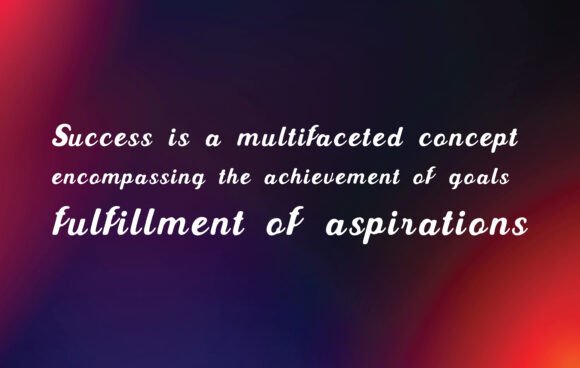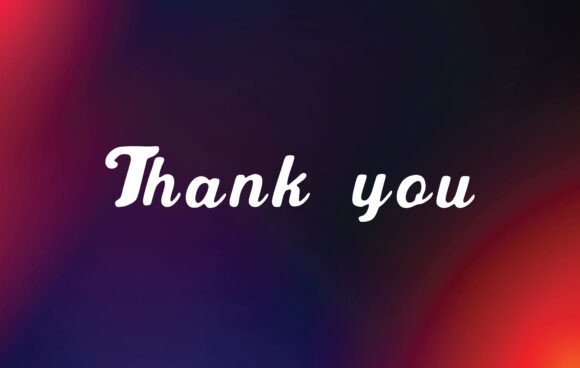
Dillon Font: Elevate Your Creative Projects with this Lovely Handwritten Font
Are you a designer or crafter looking for a font that can take your creative ideas to the next level? Look no further than the Dillon font. This beautiful handwritten font is perfect for creating eye-catching logos, branding, and quotes that will leave a lasting impression on your audience.
What Makes Dillon Font So Special?
Dillon font is a lovely and beautiful handwritten font that has the potential to elevate your creative projects to new heights. Its unique and elegant design makes it stand out from other fonts, and its versatility ensures that it can be used in a variety of contexts. Whether you’re creating a logo, branding materials, or social media graphics, Dillon font is the perfect choice.
Key Features of Dillon Font
- Handwritten Design: Dillon font has a beautiful handwritten design that gives it a personal and unique touch.
- Elegant and Sophisticated: The font has an elegant and sophisticated feel that makes it perfect for creating high-end branding and logos.
- Versatile: Dillon font can be used in a variety of contexts, from digital graphics to print materials.
- Easy to Read: Despite its elegant design, Dillon font is easy to read and understand, making it perfect for creating quotes and other text-based graphics.
Why Choose Dillon Font?
So why choose Dillon font for your creative projects? Here are just a few reasons:
- Stand Out from the Crowd: Dillon font is unique and distinctive, making it the perfect choice for designers and crafters who want to stand out from the crowd.
- Elevate Your Brand: With Dillon font, you can create high-end branding materials that will elevate your brand and make it more memorable.
- Perfect for Quotes and Sayings: Dillon font is perfect for creating quotes and sayings that will inspire and motivate your audience.
How to Use Dillon Font
Using Dillon font is easy. Here are a few tips:
- Pair it with Other Fonts: Dillon font pairs well with other fonts, so feel free to experiment with different combinations to find the perfect look for your project.
- Use it for Headings and Titles: Dillon font is perfect for creating headings and titles that will grab attention and make a lasting impression.
- Experiment with Different Colors: Dillon font looks great in a variety of colors, so don’t be afraid to experiment and find the perfect color for your project.
- What is Dillon font?: Dillon font is a beautiful handwritten font that is perfect for creating eye-catching logos, branding, and quotes.